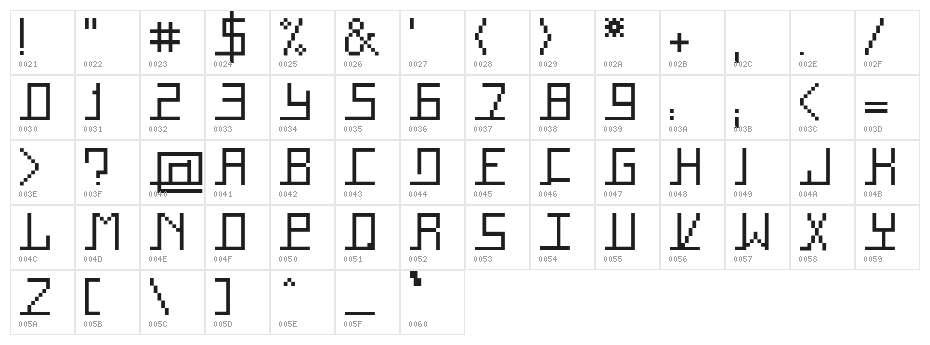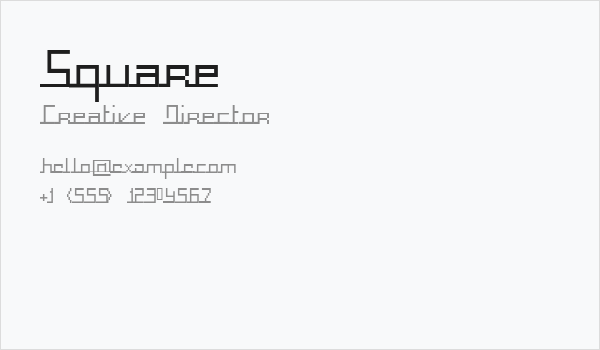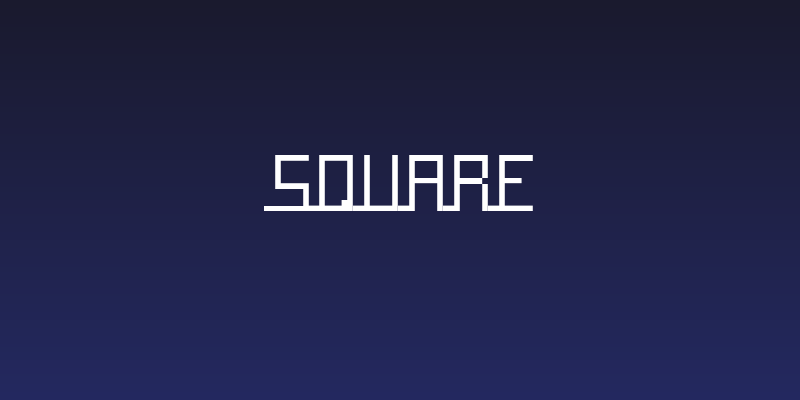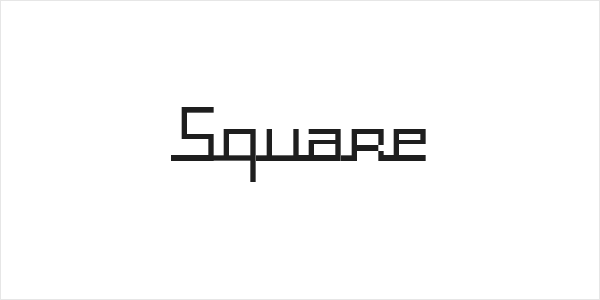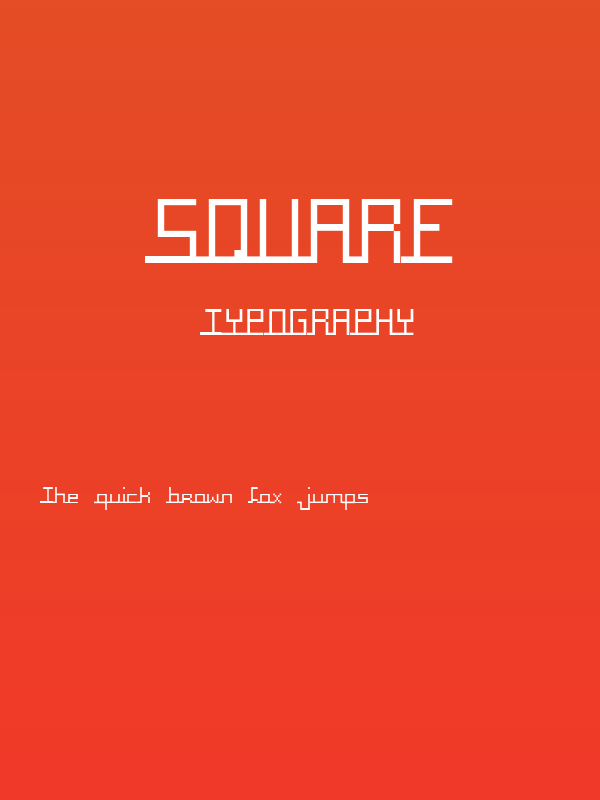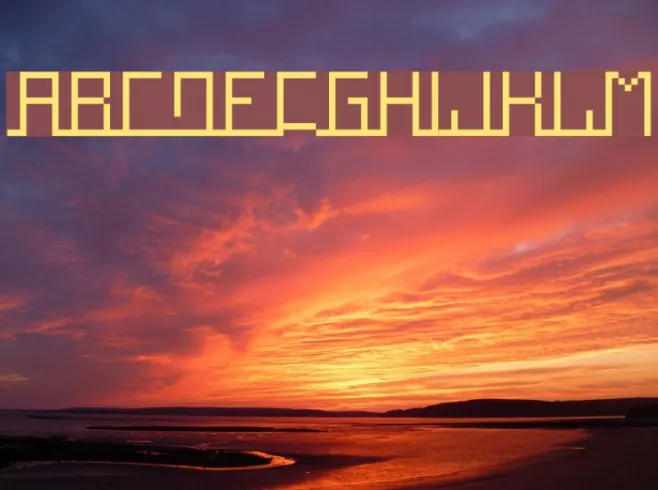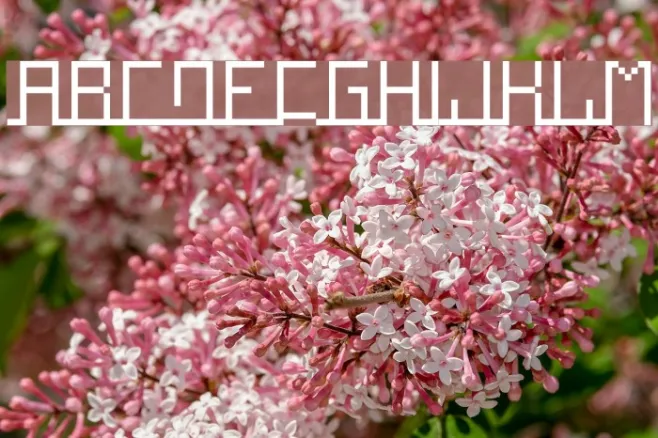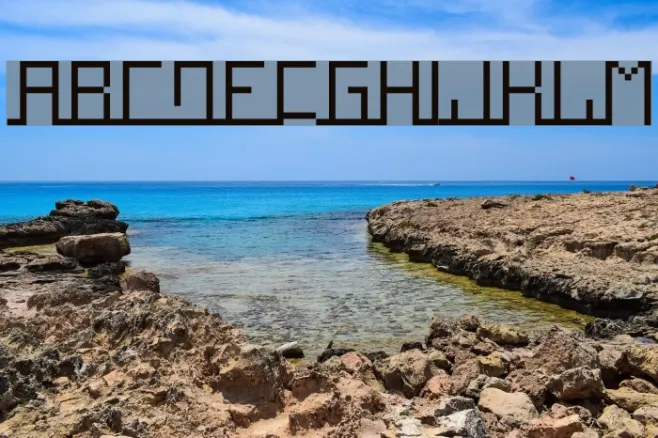
Square Font
This font features a geometric, pixelated design with a modern and digital aesthetic. Each character is constructed with a grid-like precision, giving it a blocky and structured appearance. The uppercase letters are uniform in height and width, while the lowercase letters maintain a consistent style, ensuring readability. Numbers and special characters follow the same pixelated theme, making the font ideal for digital displays or retro-themed projects. The overall look is clean and minimalistic, yet distinctively bold, capturing attention with its unique style.
| Proposed Projects | Ideal for digital displays, retro-themed designs, video game graphics, and tech-related branding. |